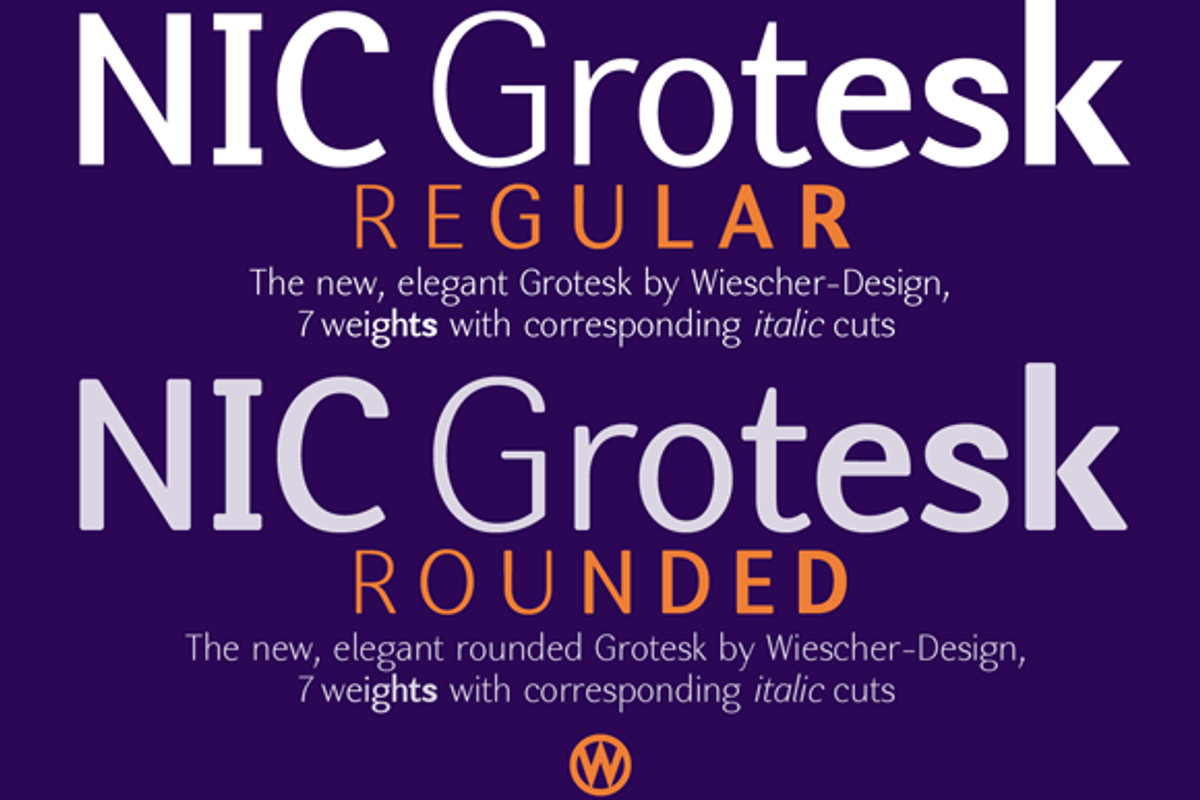
NIC Fonts Free Download offers a versatile and modern typeface that blends simplicity with personality. Designed to suit a wide range of creative projects, NIC is ideal for branding, web design, social media content, editorial layouts, product packaging, and more. Its clean structure and balanced proportions make it a dependable choice for both headlines and body text.
Whether you’re building a sleek logo or a stylish marketing campaign, NIC Fonts provides the clarity and flair your work needs. It’s readable, professional, and effortlessly chic—perfect for projects that demand a touch of modern elegance without sacrificing functionality.